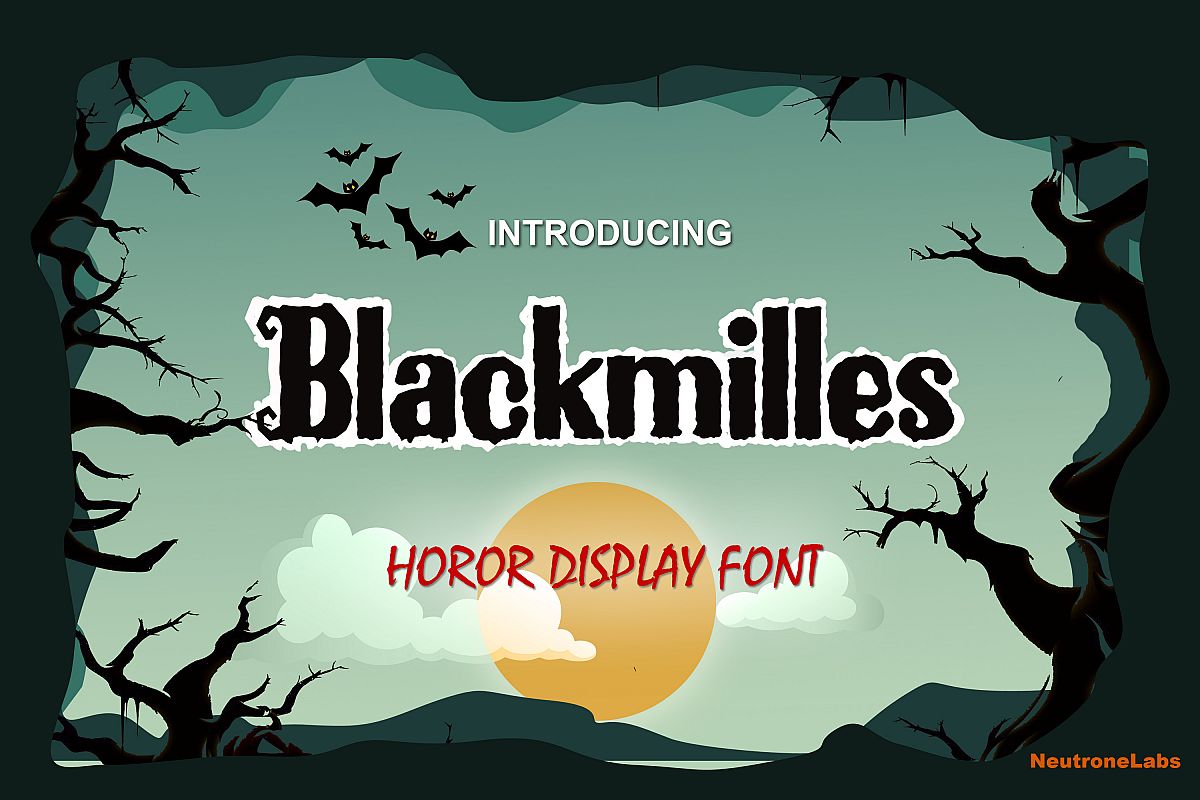
Blackmilles
Blackmilles is a display font that is perfect for Halloween.  inspired by  Halloween style
Use it to turn any Halloween-themed crafting project into a true standout